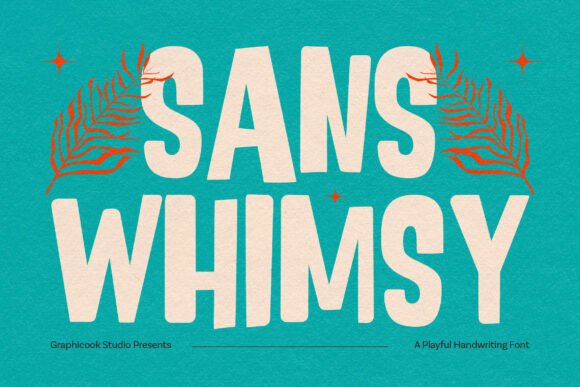
Sanswhimsy Font: The Ultimate Playful Handwritten Sans Font
In the world of typography, fonts play a crucial role in conveying the tone and personality of a brand or design. When it comes to creating eye-catching and engaging designs, the right font can make all the difference. This is where Sanswhimsy Font comes in – a playful handwritten sans font that blends quirky charm with bold simplicity.
What is Sanswhimsy Font?
Sans Whimsy is a playful handwriting typeface with bold letters, ideal for adding a handmade touch to quotes, art, titles, and more. It is perfect for headlines, logotypes, magazines, packaging, quotes, movies, games, cover albums, book covers, and flyers. This font is a perfect solution for creating eye-catching designs that stand out in any context.
Key Features of Sanswhimsy Font
- Chunky letterforms: Sanswhimsy Font features chunky letterforms that give it a bold and playful look.
- Slightly uneven edges: The font’s slightly uneven edges give it a handmade, approachable feel.
- Playful and quirky charm: Sanswhimsy Font has a playful and quirky charm that makes it perfect for creative branding and designs.
- Bold simplicity: The font’s bold simplicity makes it easy to read and perfect for headlines and titles.
Uses of Sanswhimsy Font
Sanswhimsy Font is a versatile font that can be used in a variety of design projects. Here are some of the uses of this font:
Use Cases for Sanswhimsy Font
- Headlines and titles: Sanswhimsy Font is perfect for headlines and titles due to its bold and playful look.
- Logotypes and branding: The font’s quirky charm and handmade feel make it ideal for logotypes and branding projects.
- Magazines and packaging: Sanswhimsy Font can be used in magazines and packaging designs to add a playful touch.
- Quotes and posters: The font’s bold simplicity makes it perfect for quotes and posters.
- Movies and games: Sanswhimsy Font can be used in movie and game designs to add a playful and quirky touch.
- Cover albums and book covers: The font’s bold and playful look makes it perfect for cover albums and book covers.
- Flyers and social media graphics: Sanswhimsy Font can be used in flyers and social media graphics to add a playful touch.
- DIY-themed designs: The font’s handmade feel makes it perfect for DIY-themed designs.
- Children’s books: Sanswhimsy Font is ideal for children’s books due to its playful and quirky charm.
Benefits of Using Sanswhimsy Font
Using Sanswhimsy Font in your design projects can have several benefits. Here are some of the advantages of using this font:
Benefits of Sanswhimsy Font
- Adds a playful touch: Sanswhimsy Font can add a playful touch to your designs, making them more engaging and eye-catching.
- Creates a handmade feel: The font’s slightly uneven edges and chunky letterforms give it a handmade feel that can add a personal touch to your designs.
- Perfect for creative branding: Sanswhimsy Font is ideal for creative branding projects due to its quirky charm and bold simplicity.
- Easy to read: The font’s bold simplicity makes it easy to read, even at small sizes.
- Versatile: Sanswhimsy Font can be used in a variety of design projects, from headlines and titles to logotypes and branding.
How to Use Sanswhimsy Font
Using Sanswhimsy Font in your design projects is easy. Here are some tips on how to use this font:
Tips for Using Sanswhimsy Font
- Use it for headlines and titles: Sanswhimsy Font is perfect for headlines and titles due to its bold and playful look.
- Experiment with different colors: The font’s bold simplicity makes it perfect for experimenting with different colors and gradients.
- Pair it with other fonts: Sanswhimsy Font can be paired with other fonts to create a unique and interesting look.
- Use it for creative branding: The font’s quirky charm and handmade feel make it ideal for creative branding projects.
In conclusion, Sanswhimsy Font is a playful handwritten sans font that blends quirky charm with bold simplicity. Its chunky letterforms and slightly uneven edges give it a handmade, approachable feel that makes it perfect for creative branding, product packaging, children’s books, social media graphics, and DIY-themed designs. With its friendly tone and vibrant personality, Sanswhimsy Font is your secret weapon for adding joy and fun to any project.
Font Information
- Font name: Sanswhimsy Font
- Font style: Playful handwritten sans font
- Font features: Chunky letterforms, slightly uneven edges, bold simplicity
- Use cases: Headlines, titles, logotypes, branding, magazines, packaging, quotes, movies, games, cover albums, book covers, flyers, social media graphics, DIY-themed designs